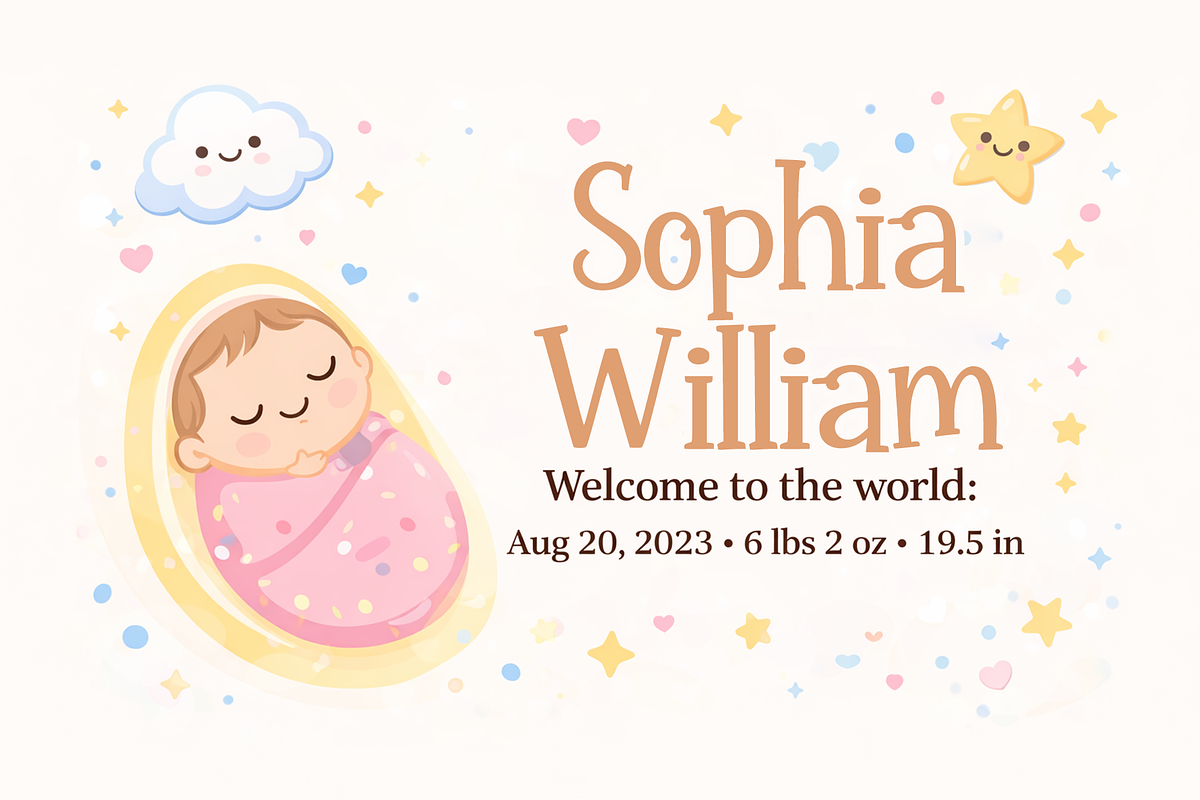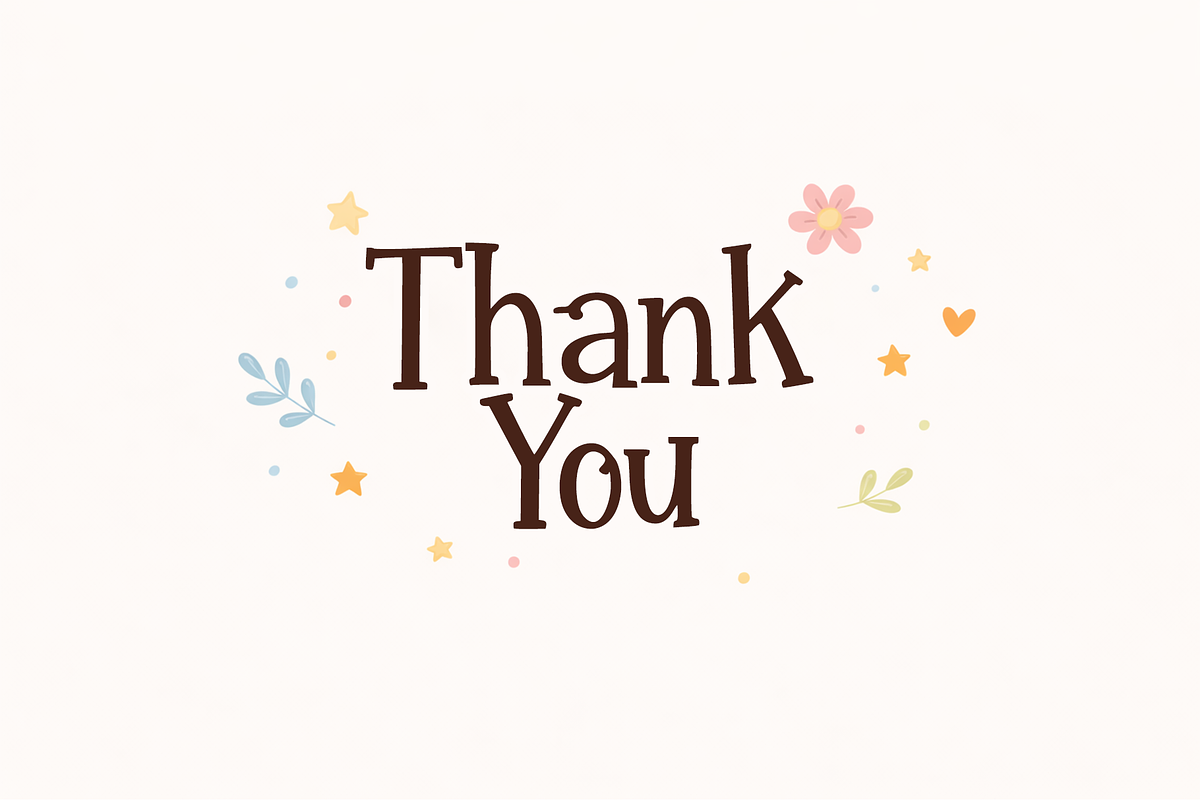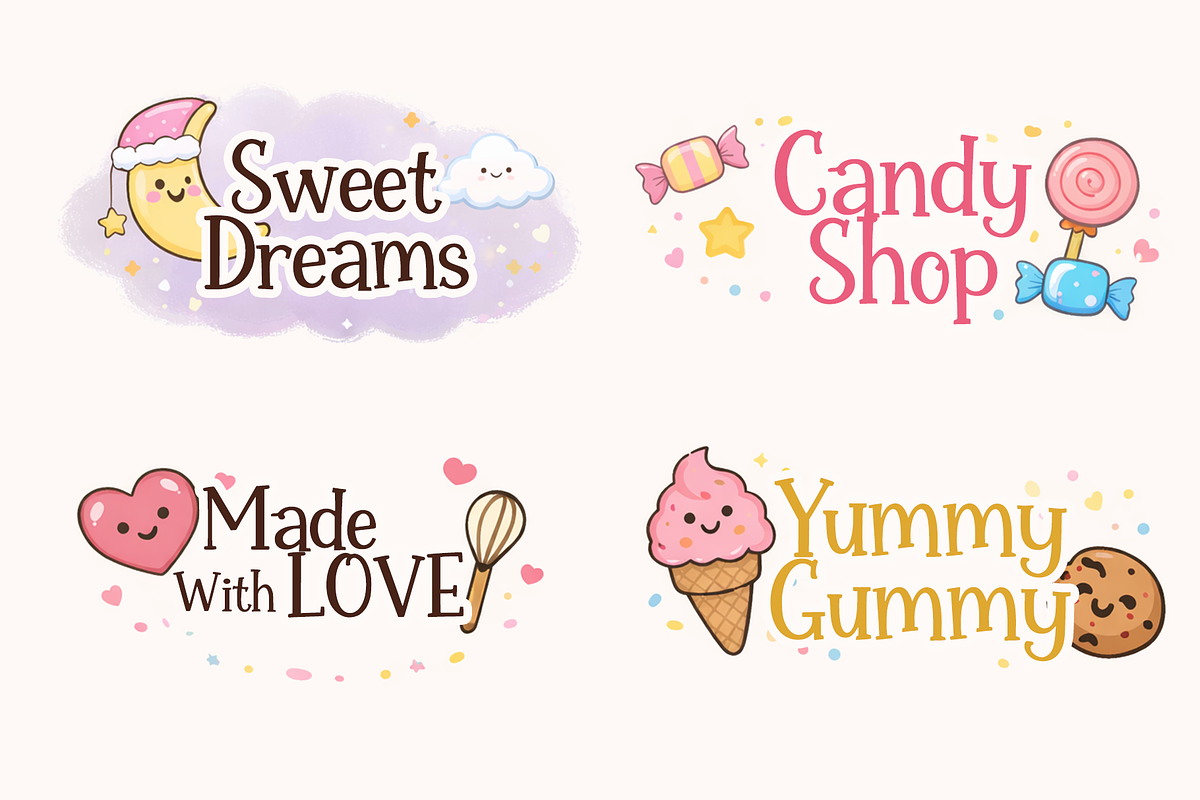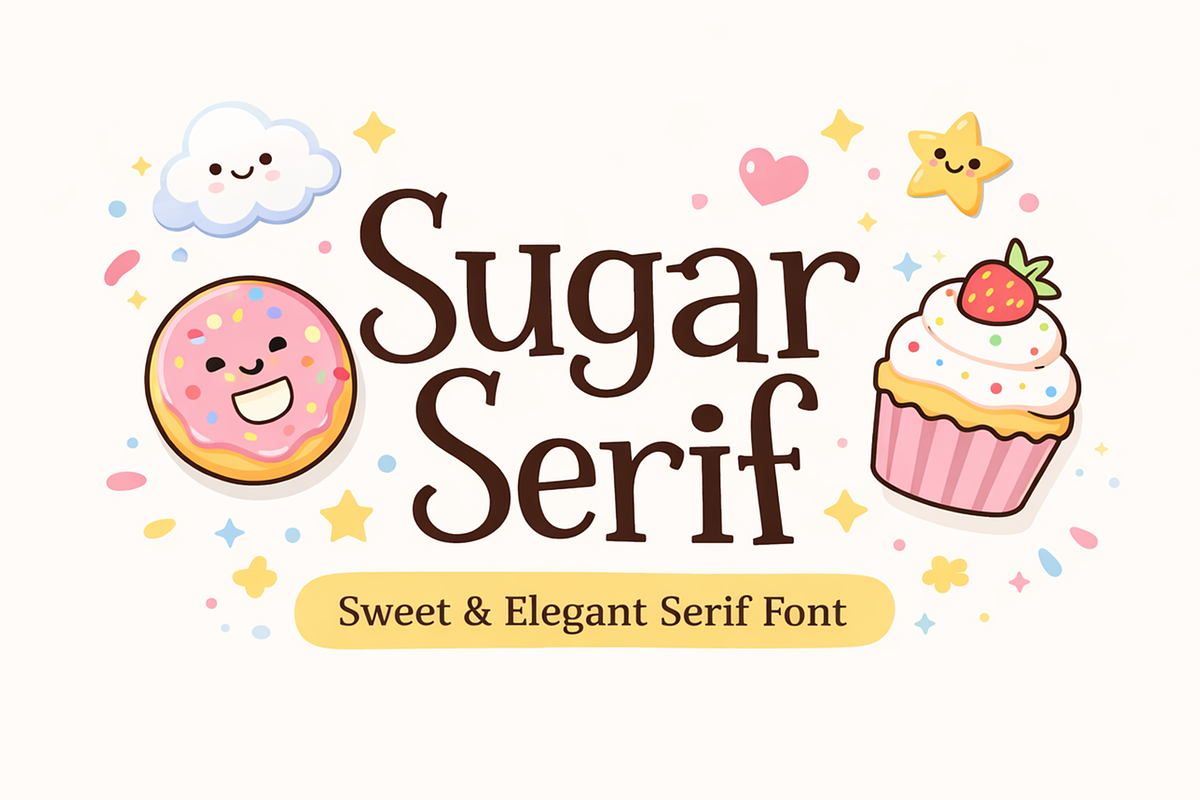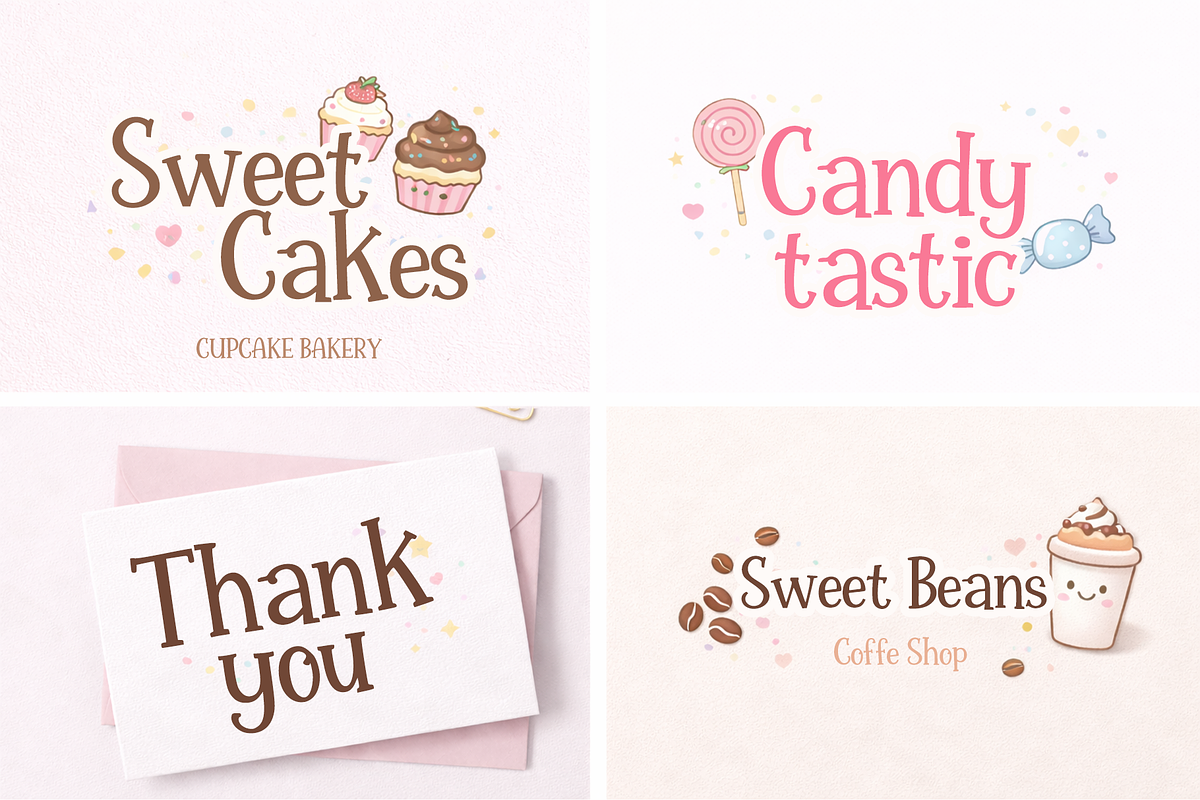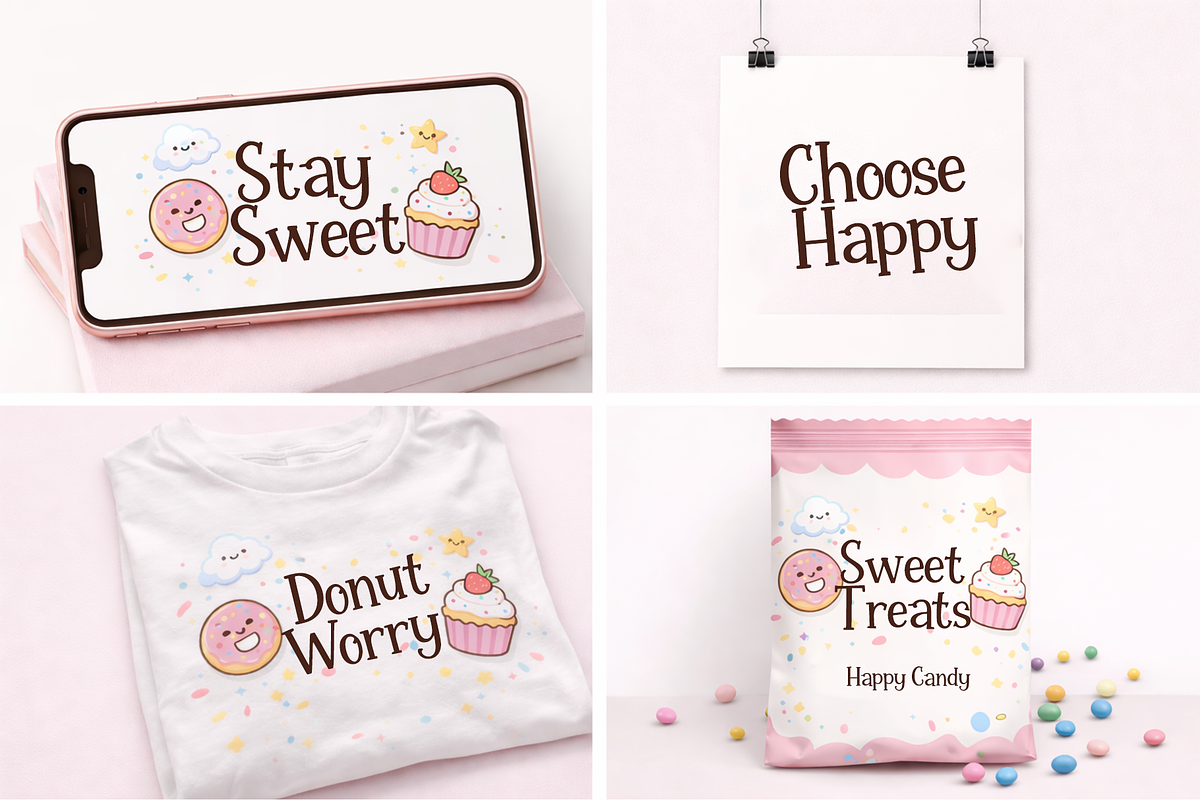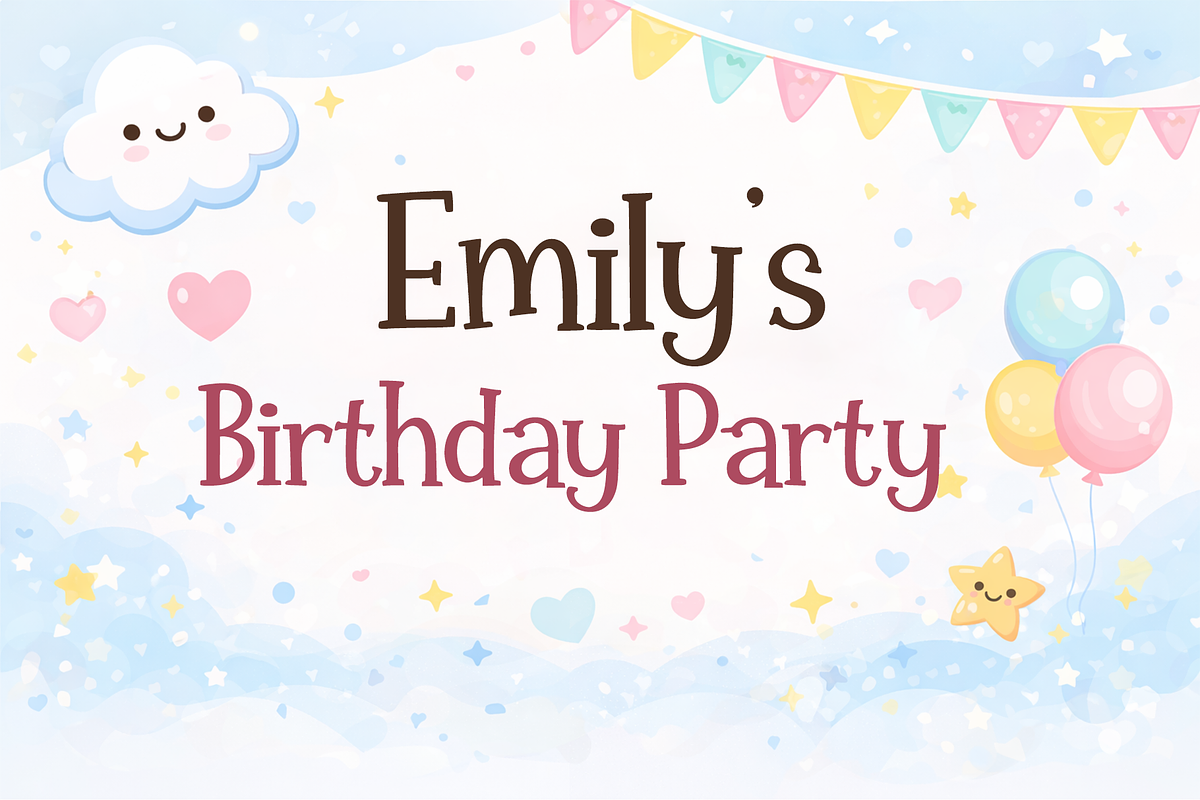
Sugar Serif
Sugar Serif is a decorative serif font with a sweet and elegant touch, featuring soft, modern, and clean characters that make it perfect for creative projects such as branding, logos, product packaging, social media designs, posters, children’s book covers, invitations, and merchandise, with balanced letterforms, smooth serif details, high readability, and a professional yet playful appearance in one complete typeface.